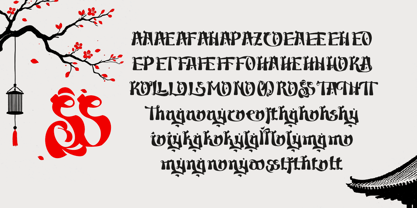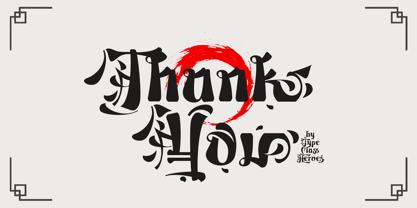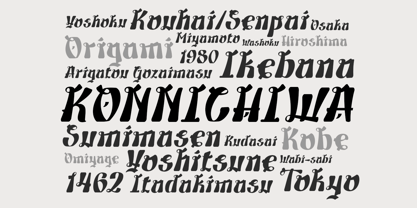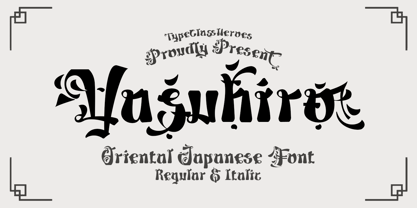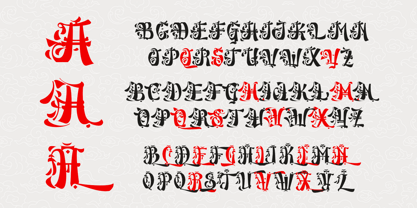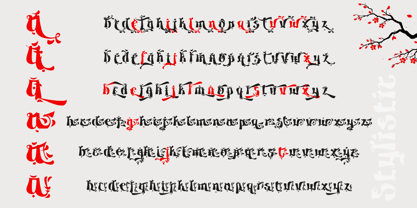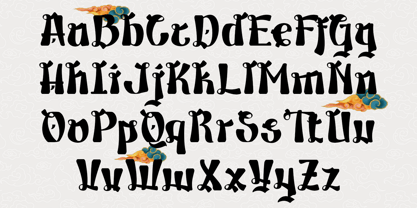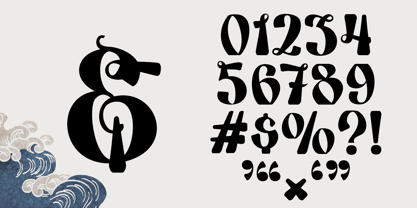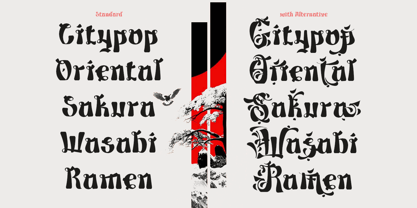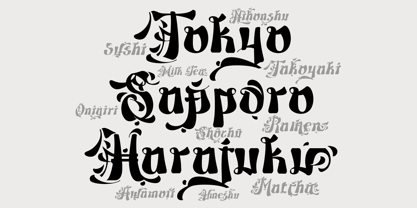
Yasuhiro
by TypeClassHeroes
The Yasuhiro Font Family was designed by Suandana ipandemade and published by TypeClassHeroes. Yasuhiro contains 2 styles and family package options. More about this family
This decorative font is inspired by the structure of Japanese kanji characters, evident in the letterforms, which resemble traditional calligraphic brushstrokes. Each character features contrasting thick and thin lines, pointed tips, and bold, dynamic curves, creating a strong, artistic, and expressive impression, reminiscent of typical Japanese handwriting. Inspiration conveys the authentic and classic feel of Japanese culture, yet is presented in a modern form using the Latin alphabet. This gives the font a unique, exotic look and a strong visual identity. Ideal for branding that wants to emphasize Japanese or oriental characteristics, such as Japanese restaurants, streetwear brands, anime merchandise, games, Japanese beverages, and even Japanese cultural events. Furthermore, this font is also effective for poster designs, logos, and visual content that wants to appear bold, artistic, and memorable.
Designers: Suandana ipandemade
Foundry: TypeClassHeroes